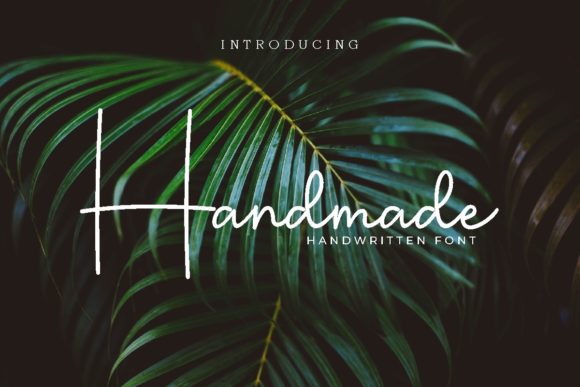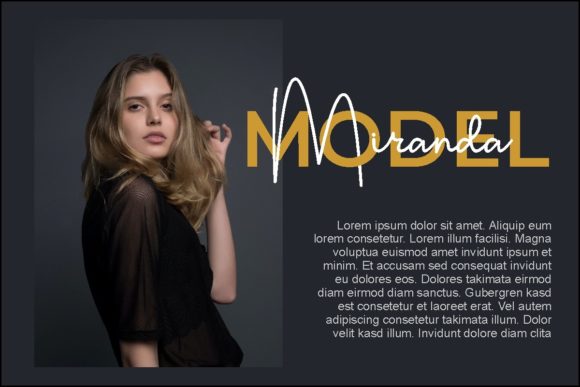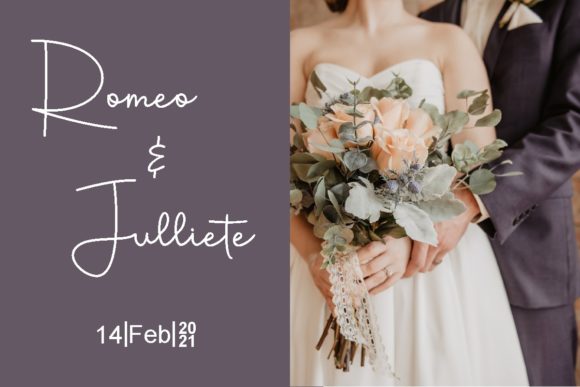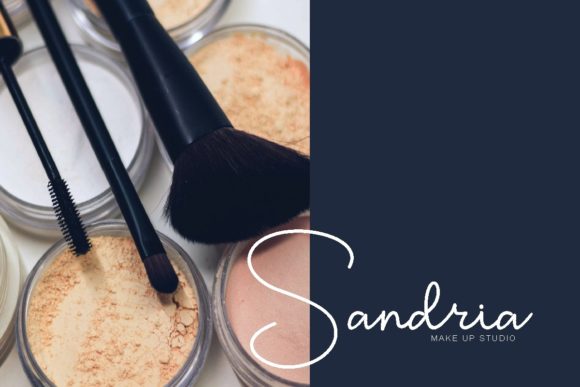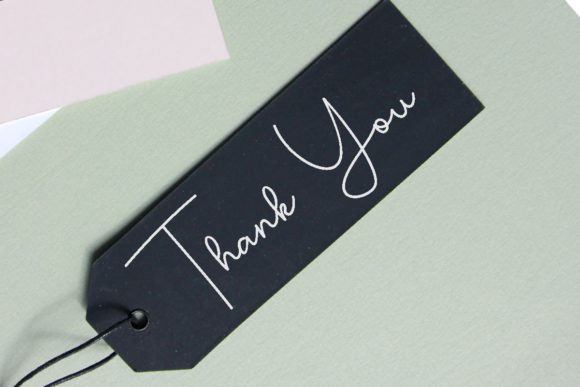
Handmade is a beautiful and light handwritten font with a unique feel and a stunning impact. It will add a luxury spark to any design project that you wish to create!